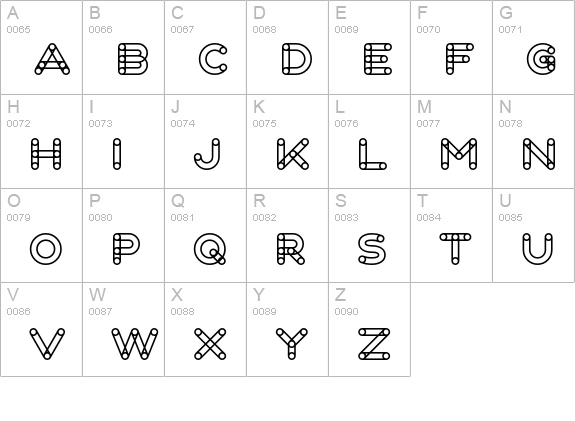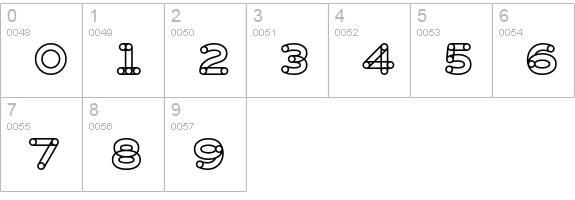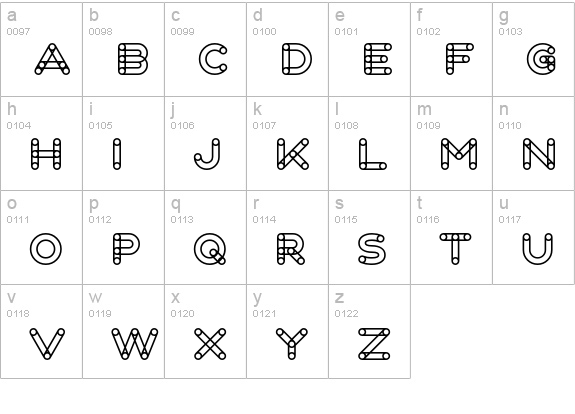
Fun City Level 3 Frame font is a whimsical and playful display font that is perfect for adding a touch of fun to your designs. With its bold and eye-catching characters, this font is sure to grab attention and make a statement. The unique frame elements surrounding each letter give it a distinctive and creative look that is ideal for posters, invitations, and other design projects. Best of all, Fun City Level 3 Frame font is available for free download at FontsMarket.com. Whether you're a designer looking to add a fun twist to your projects or just someone who loves unique and creative fonts, this font is a must-have in your collection. Get your hands on Fun City Level 3 Frame font today and let your creativity shine!